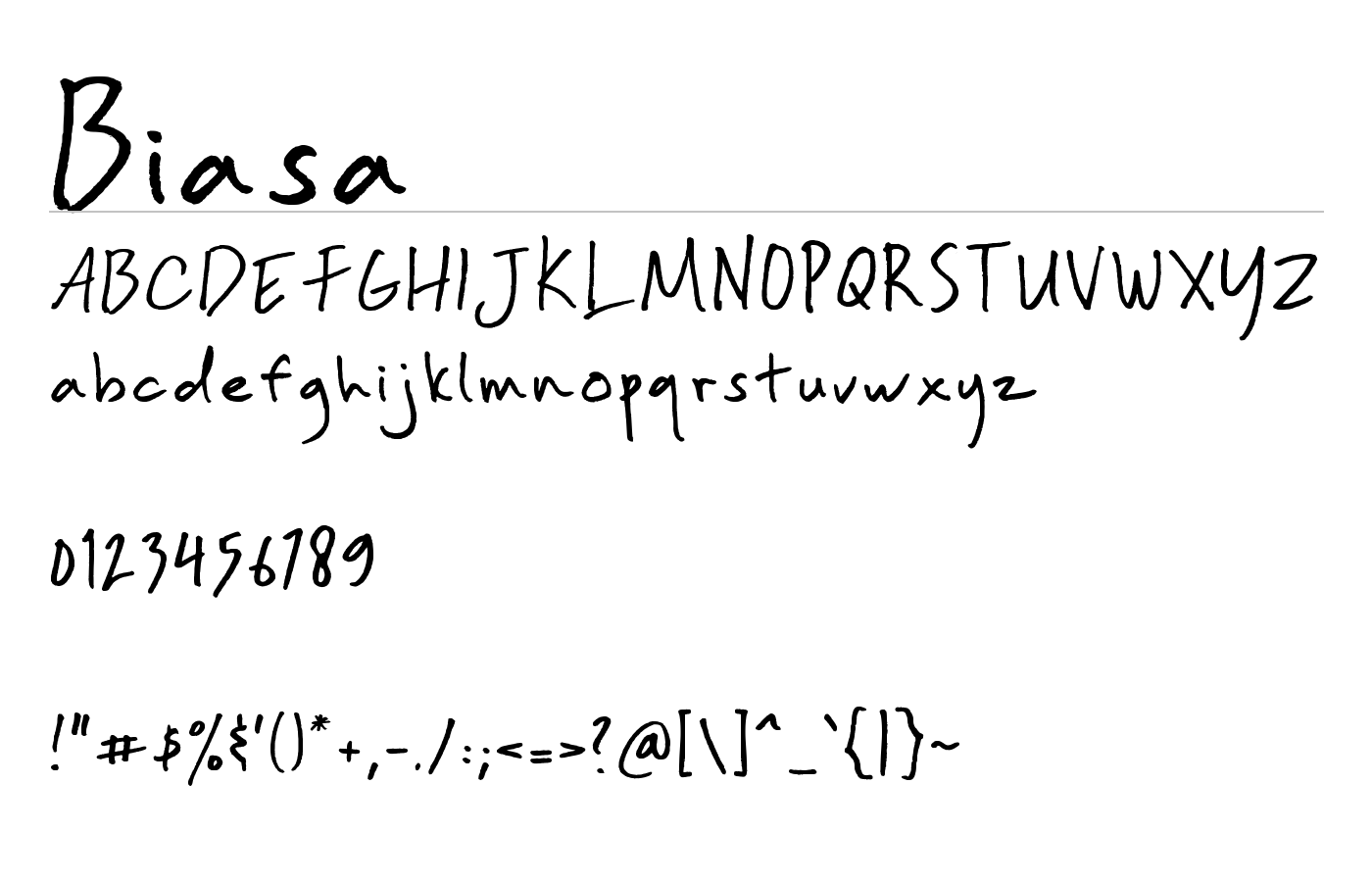
Biasa Font is a lively, handwritten sans serif typeface that exudes a casual and personal touch. Its irregular stroke widths and slightly uneven letterforms create an authentic, friendly feel, making it perfect for informal branding, creative projects, and editorial use where warmth and uniqueness are desired. This font works well in headlines and short text, adding personality and approachability to designs.
Biasa Font
About Biasa Font